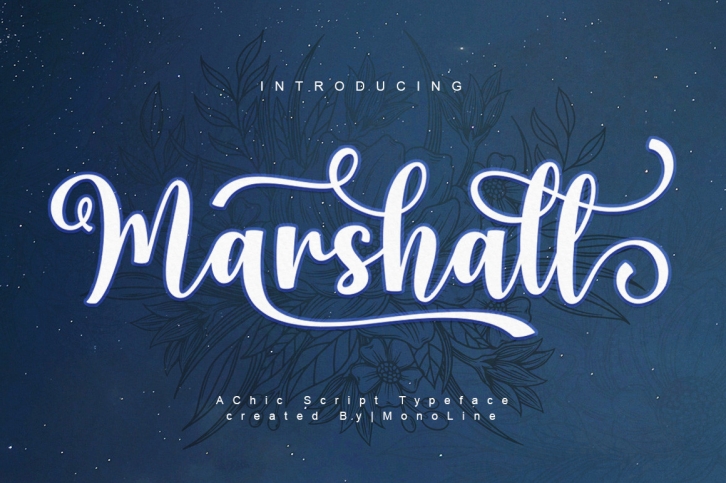
Marshall Script is a gorgeous, paint brushed and delicate script font. This font is PUA encoded which means you can access all of the glyphs and swashes with ease.